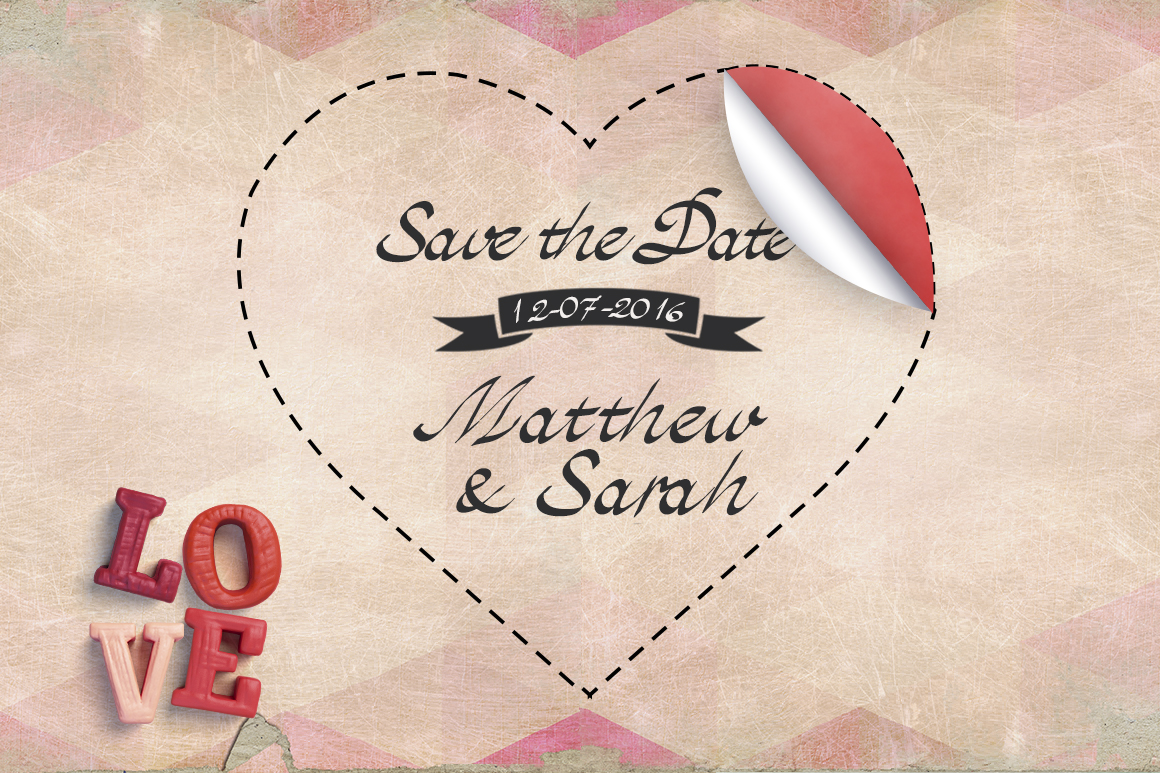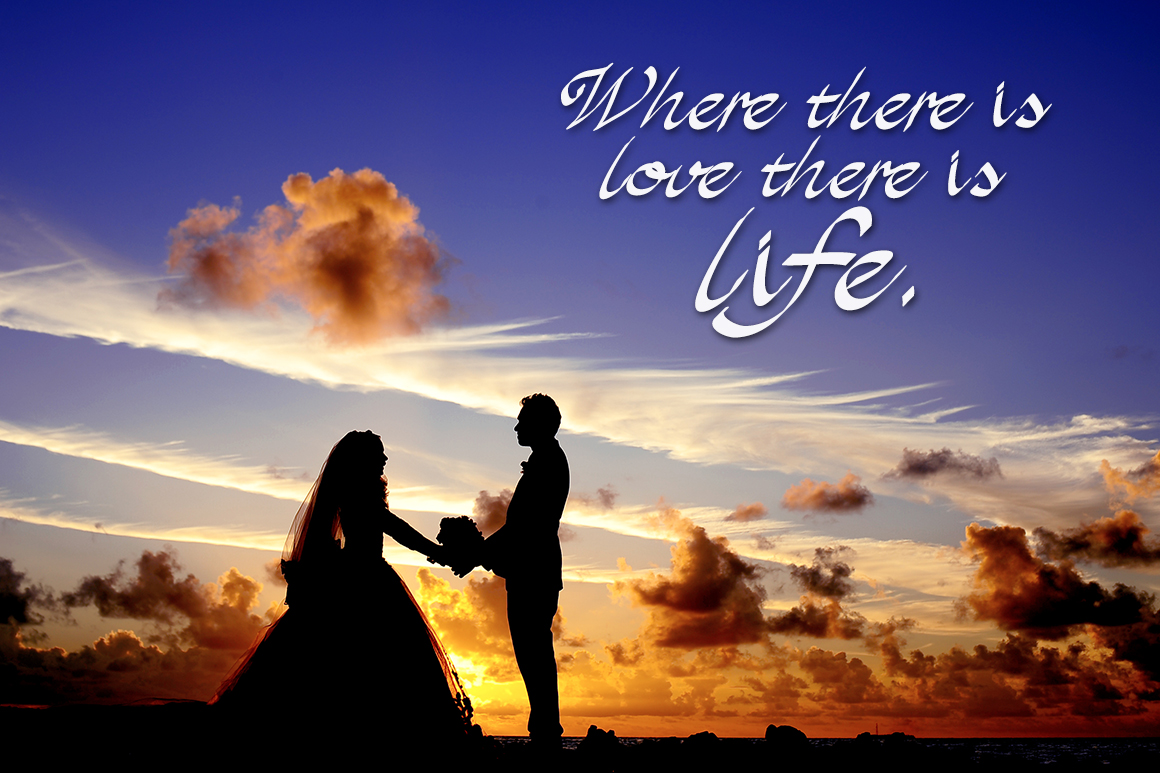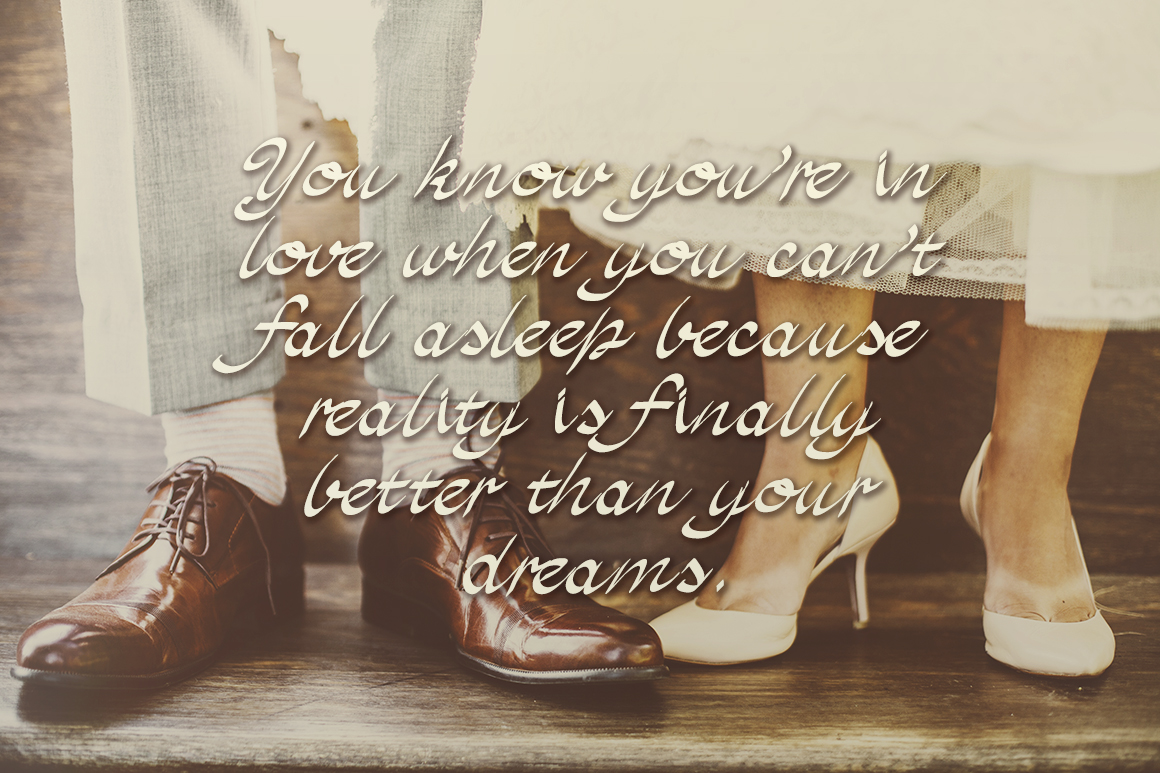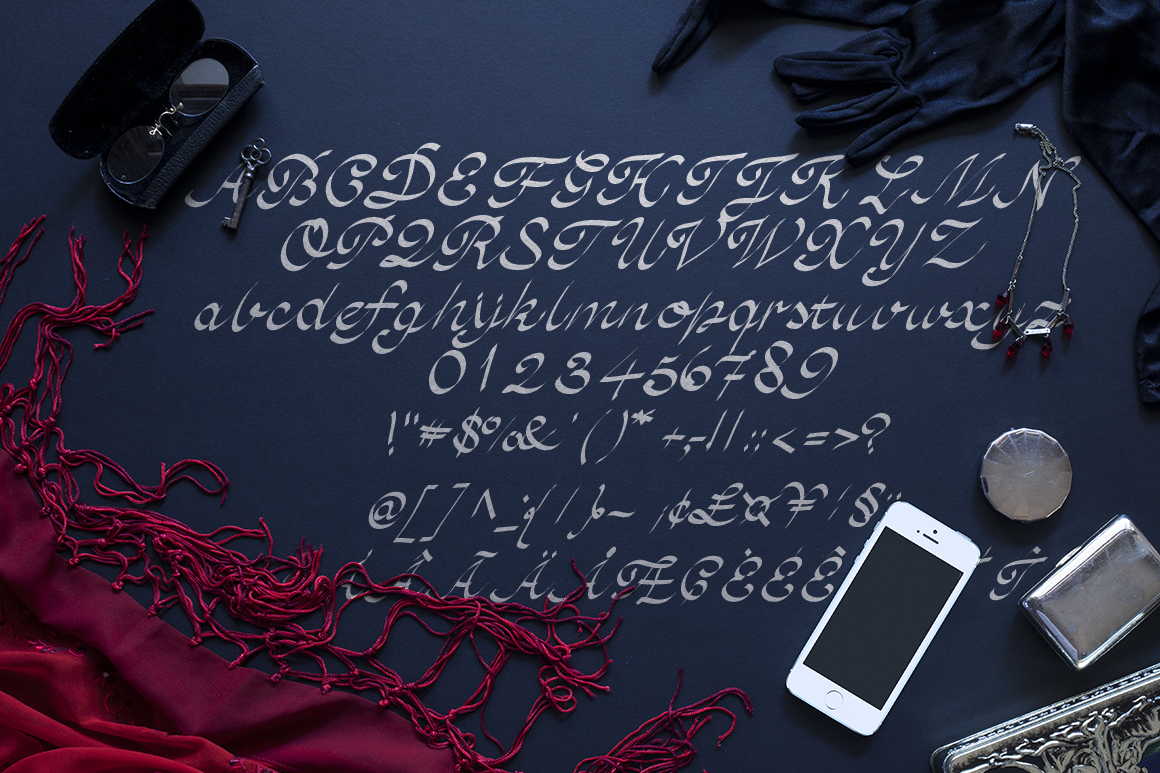
Cinthia Font: The Elegant Choice for Your Creative Projects
Are you looking for a typeface that exudes elegance and sophistication? Look no further than Cinthia Font, a lovely and curvy hand-drawn font that’s perfect for a variety of creative projects. In this article, we’ll take a closer look at Cinthia Font, its features, and how you can use it to add a touch of elegance to your designs.
What is Cinthia Font?
Cinthia Font is a beautiful, hand-drawn typeface characterized by its curvy and smooth lines. This elegant font is designed to add a touch of sophistication to any project, making it perfect for designers and crafters who want to create stunning visual content. Whether you’re working on wedding invitations, handmade signs, or greeting cards, Cinthia Font is an excellent choice.
Key Features of Cinthia Font
Cinthia Font boasts several key features that make it an attractive choice for designers and crafters:
- Curvy Hand-Drawn Letters: Cinthia Font features beautifully crafted, curvy letters that give it a unique and elegant feel.
- Elegant and Sophisticated: The font’s smooth lines and curves create a sophisticated look that’s perfect for high-end designs.
- Versatile: Cinthia Font can be used for a variety of projects, from wedding invitations to handmade signs, and even digital designs.
- Easy to Read: Despite its elegant feel, Cinthia Font is easy to read, making it perfect for body text and headings.
Using Cinthia Font in Your Designs
Cinthia Font is an incredibly versatile typeface that can be used in a variety of creative projects. Here are some ideas to get you started:
- Wedding Invitations: Add a touch of elegance to your wedding invitations with Cinthia Font. Its curvy lines and smooth curves create a romantic and sophisticated look that’s perfect for wedding stationery.
- Handmade Signs: Cinthia Font is also perfect for handmade signs, such as welcome signs, directional signs, and more. Its elegant feel adds a touch of sophistication to any sign.
- Greeting Cards: Create beautiful greeting cards with Cinthia Font. Its smooth lines and curves make it perfect for formal and informal occasions.
- Digital Designs: Cinthia Font can also be used in digital designs, such as social media graphics, blog headers, and more.
Tips for Getting the Most Out of Cinthia Font
Here are some tips for getting the most out of Cinthia Font:
- Pair it with Other Fonts: Cinthia Font pairs well with other fonts, such as sans-serif fonts and script fonts. Experiment with different pairings to find the perfect combination for your design.
- Use it for Headings and Titles: Cinthia Font is perfect for headings and titles. Use it to add a touch of elegance to your design.
- Experiment with Colors: Cinthia Font looks great in a variety of colors. Experiment with different colors to find the perfect one for your design.
Cinthia Font is a beautiful and elegant typeface that’s perfect for designers and crafters who want to add a touch of sophistication to their designs. Its curvy hand-drawn letters, smooth lines, and curves make it perfect for a variety of creative projects, from wedding invitations to handmade signs. With its versatility, ease of use, and elegant feel, Cinthia Font is an excellent choice for any designer or crafter looking to elevate their designs.